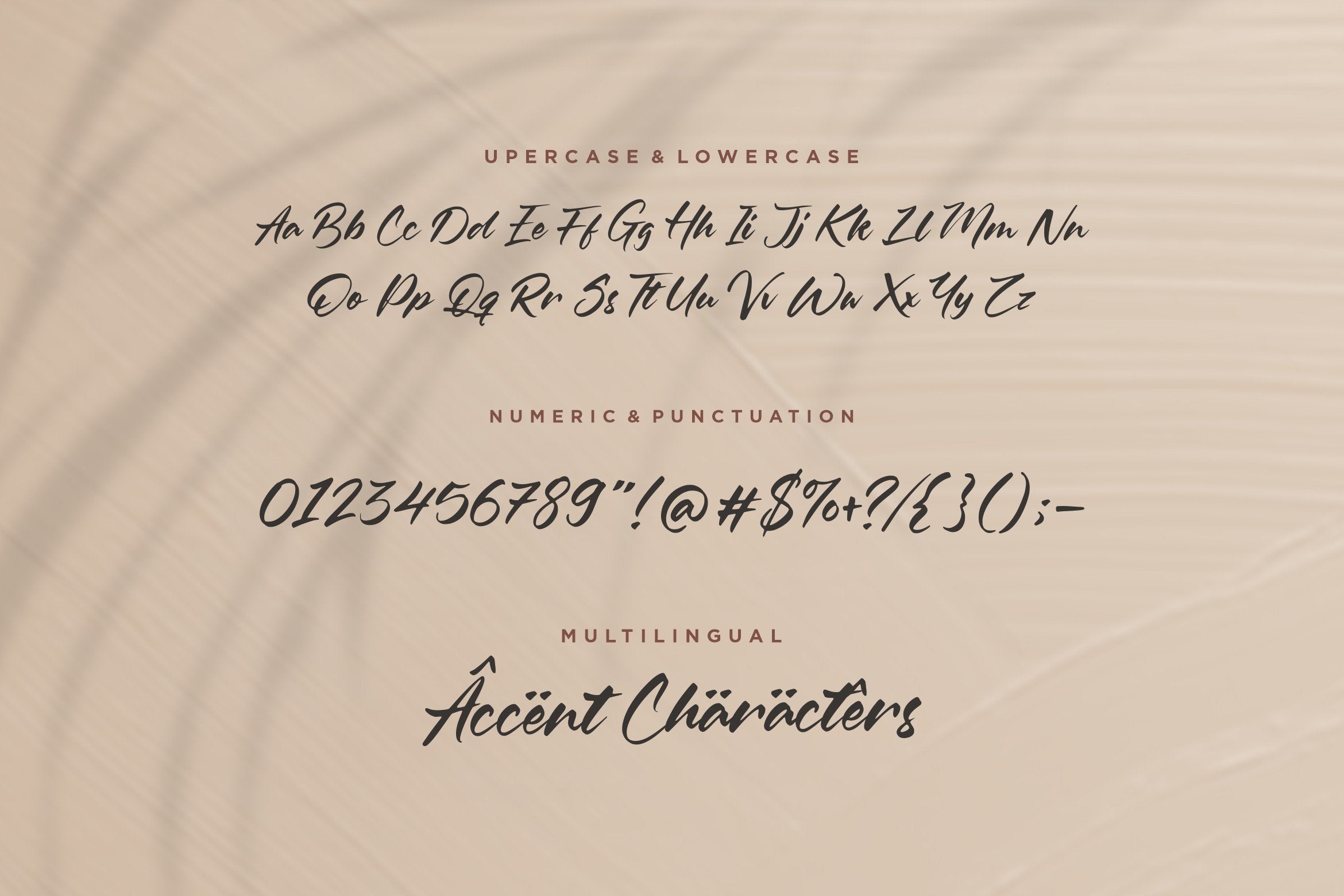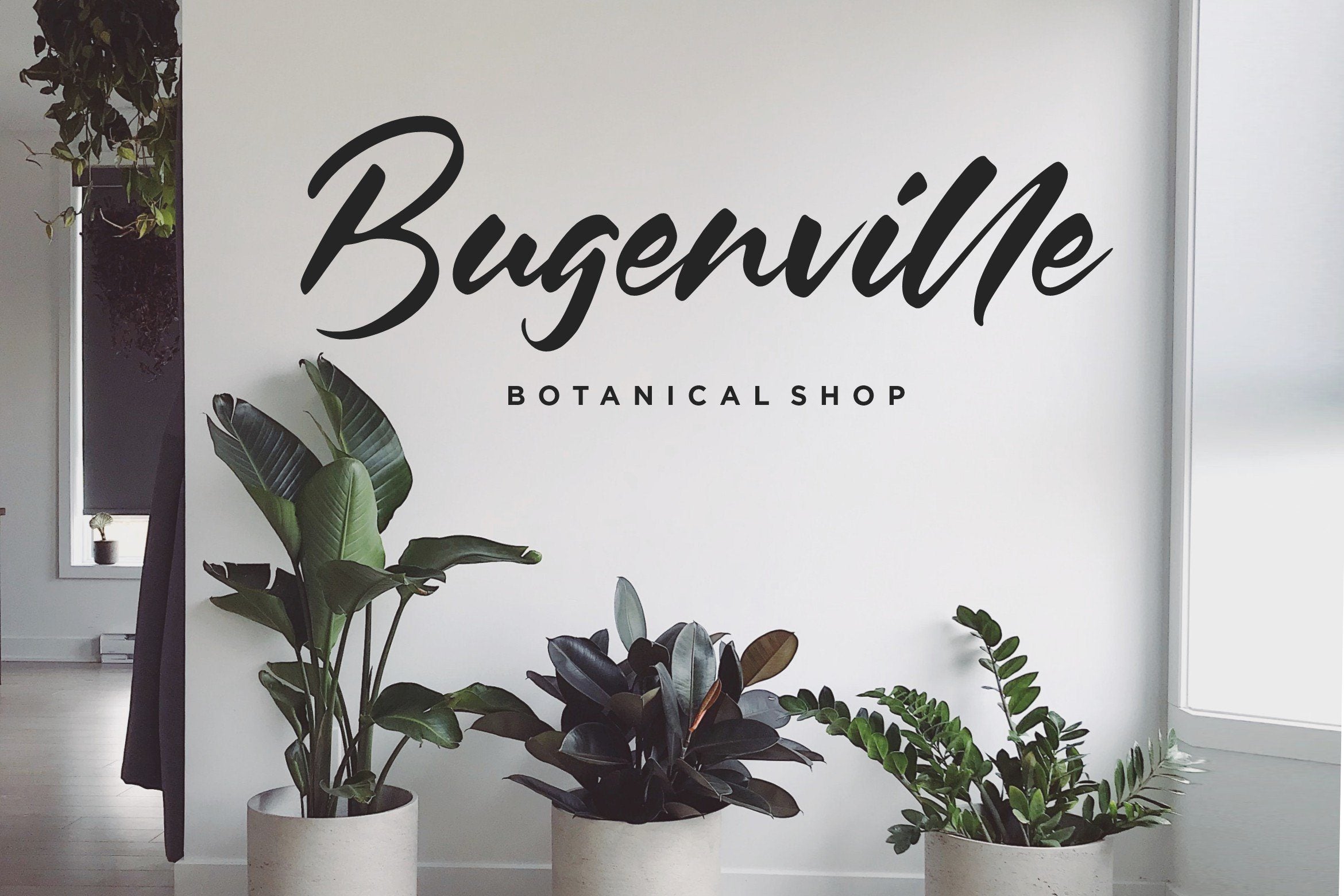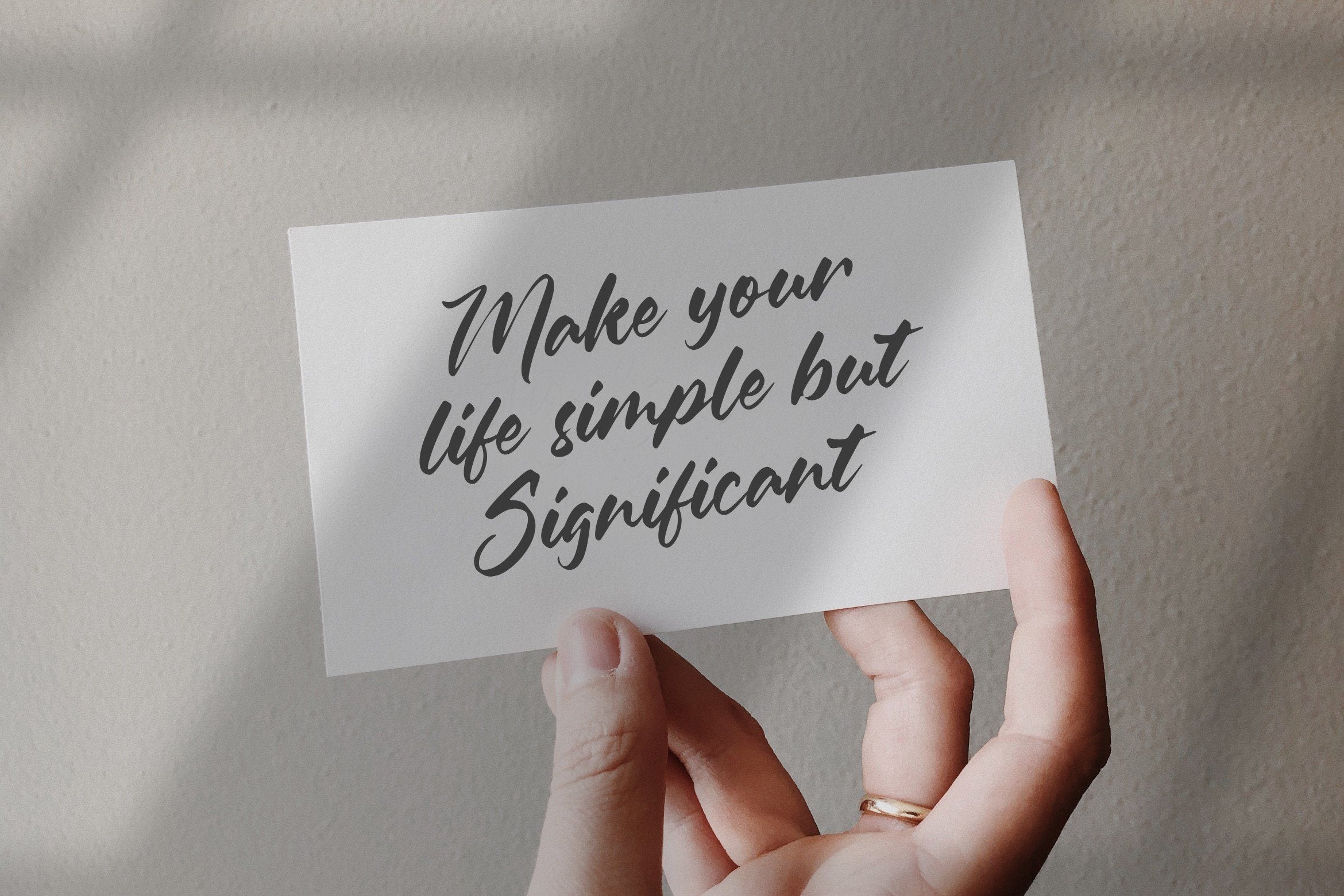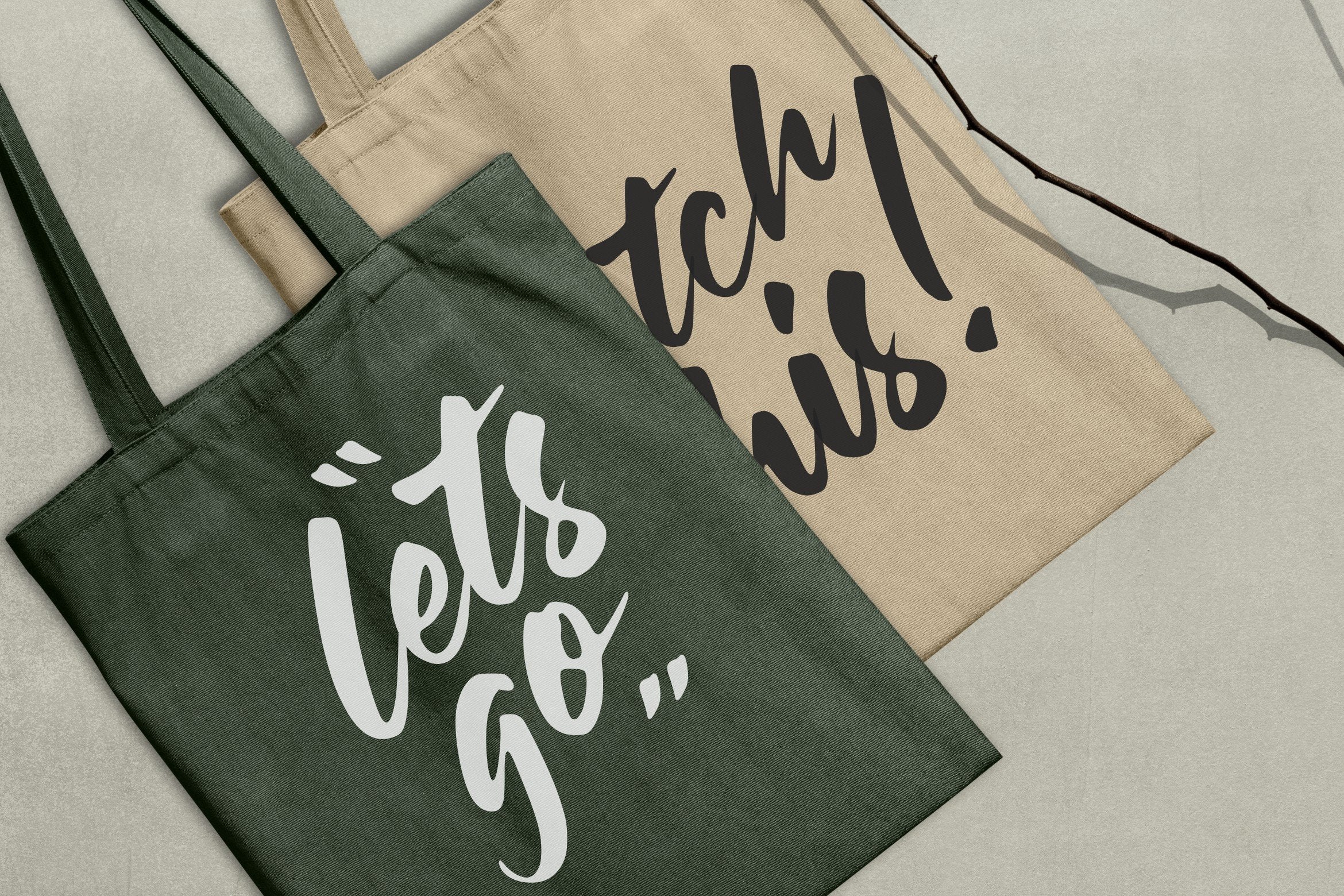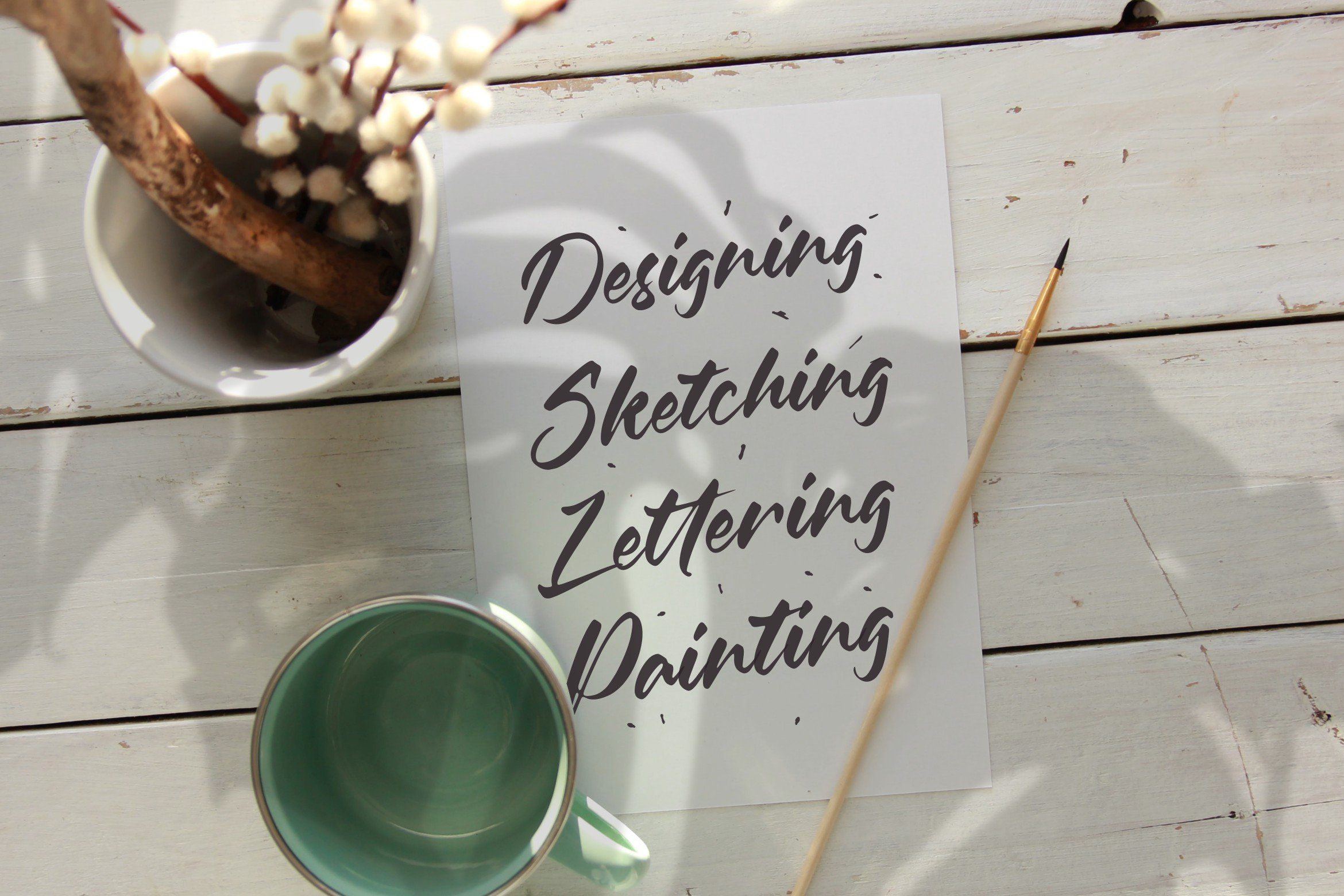
About Oleandro Modern Calligraphy Font
Introducing by Balpirick Studio. Proudly Present, Oleandro Font. Oleandro is a Modern Calligraphy Font. Oleandro is a unique and elegant handwritten font. It looks beautiful on a variety of designs requiring a personalized style, such as wedding invitations, thank you cards, weddings, greeting cards, logos and so on. This font includes TTF, OTF and WOFF, Oleandro also multilingual support. Enjoy the font, feel free to comment or feedback, send me PM or email. Thank you!